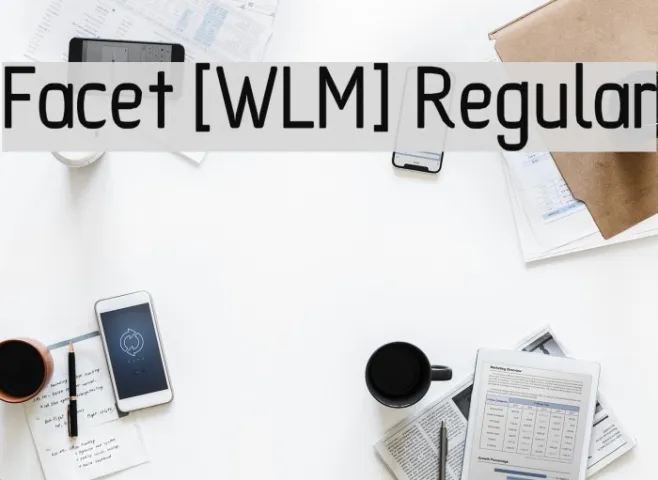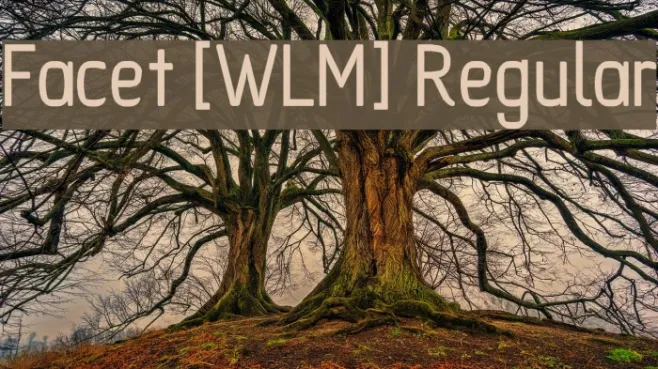
Facet [WLM] Regular Font
Facet [WLM] Regular Description
This font features a clean and modern design with a geometric structure. The characters are well-balanced with a uniform stroke width, giving it a sleek and contemporary appearance. The uppercase letters are slightly wider than the lowercase ones, providing a subtle contrast that enhances readability. The numerals are distinct and clear, making them suitable for various applications. Special characters are included, maintaining the font's cohesive style. The overall look is minimalistic yet distinctive, making it versatile for different design needs.